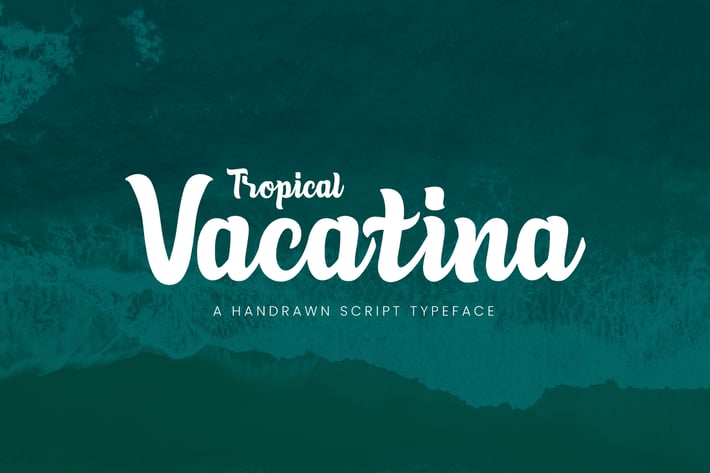
Tropical Vacatina - Bold Script Font
Are you looking for a bold and elegant handwriting font? We can help! Try to download our tropical vacatina font. The font is suitable to use for all casual purpose. Try to use it on Wedding invitation, summer occasion, greeting card, poster, postcard, photography, branding, editorial, and signature to see the best of it :)
Basic Latin A-Z and a-z
Multilangual Support for ä ö ü Ä Ö Ü